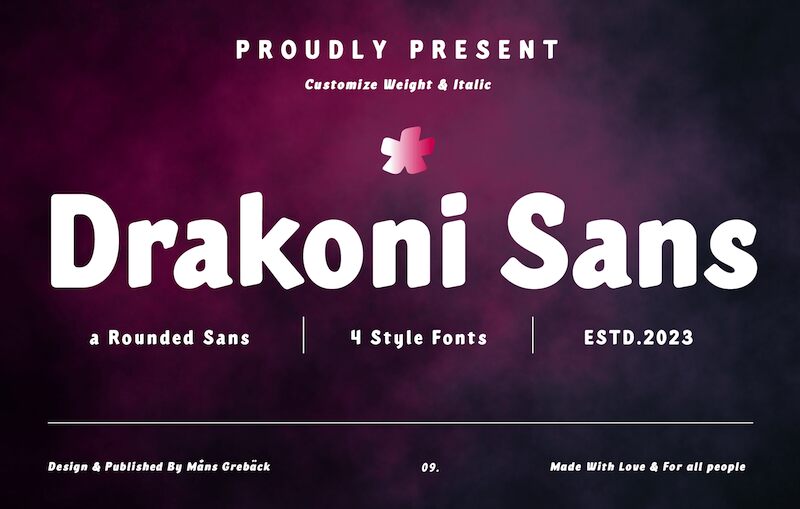
Drakoni Sans by Mans Greback is the perfect font for projects that require a bold and modern touch. Its unique rounded sans serif style gives any design a sleek and contemporary look. This versatile font is suitable for various types of projects, such as branding, packaging, advertisements, and social media graphics. Drakoni Sans bold weight makes it stand out while maintaining legibility, making it an ideal choice for headlines and titles. With its clean lines and unique character shapes, Drakoni Sans is sure to make your designs visually appealing and memorable.